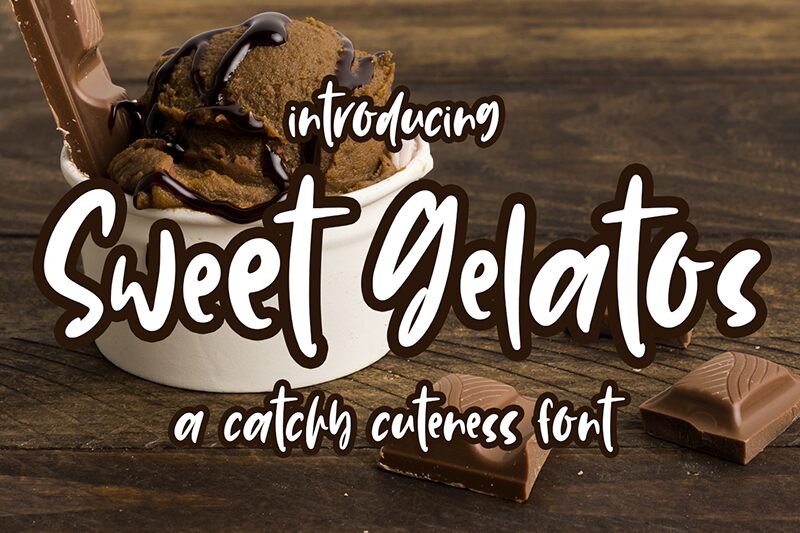
Introducing Sweet Gelatos, the charming handwritten font created by Panggah Laksono of Abo Daniel Studio. With its condensed letterforms, Sweet Gelatos is perfect for crafting cute and stylish invitations, logos, social media posts and other creative projects. It can also be used to add a playful touch to websites or magazine layouts.
Sweet Gelatos
Panggah Laksono @ Abo Daniel Studio